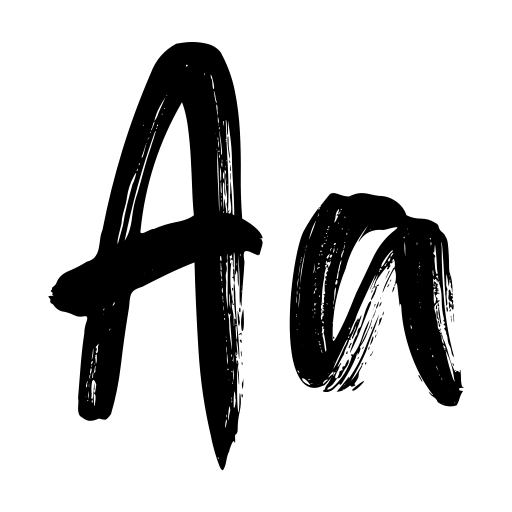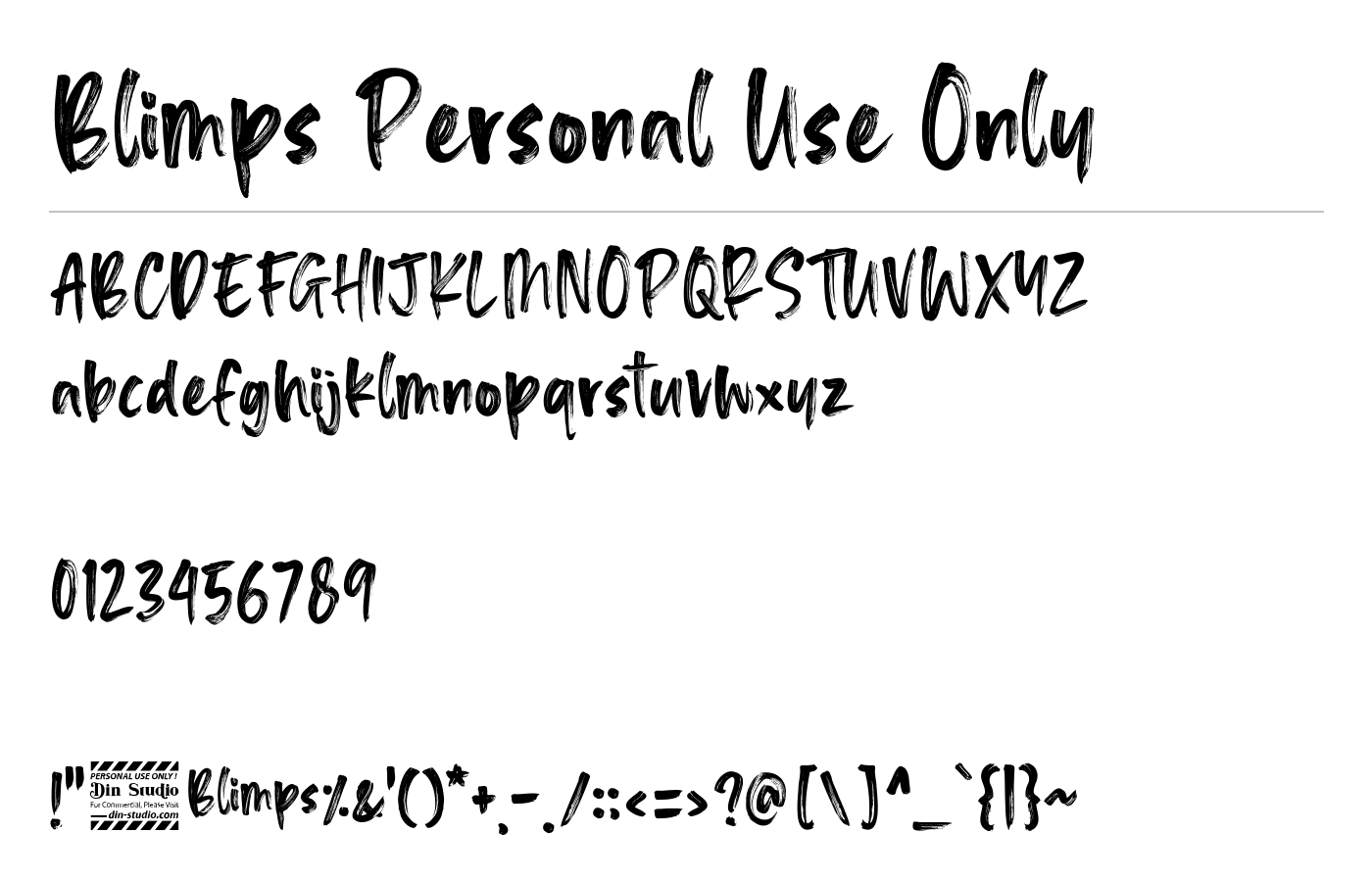
Blimps Personal Use Only is a playful, hand-brushed script font with a casual, expressive style. Its textured strokes and lively letterforms bring an energetic, informal feel, making it ideal for creative projects, branding, and headlines that want to convey approachability and personality. This font works best where a personal, artistic touch is desired, such as invitations, posters, and fun packaging.
Blimps Personal Use Only Font
About Blimps Personal Use Only Font
| Font family | Blimps Personal Use Only Font |